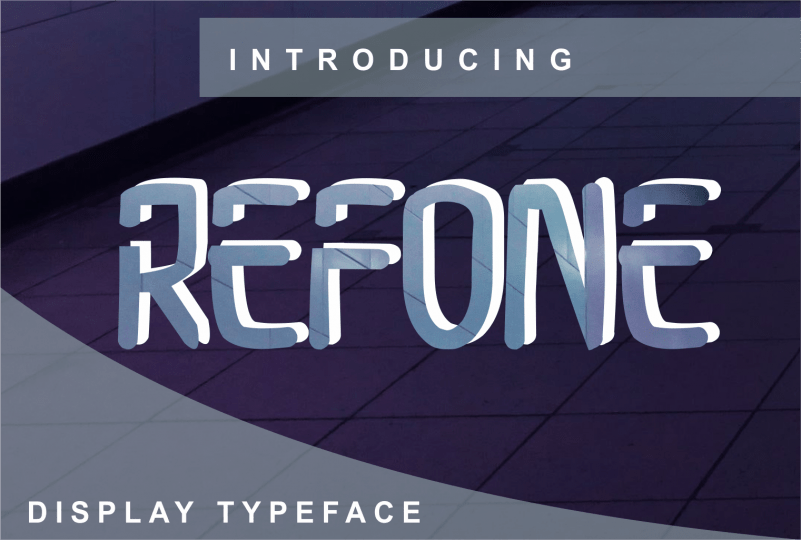
REFONE Display Font
Refone is a simple and sharp looking display font, that will truly inspire your works.
Use this font for your designs and explore its endless possibilities.